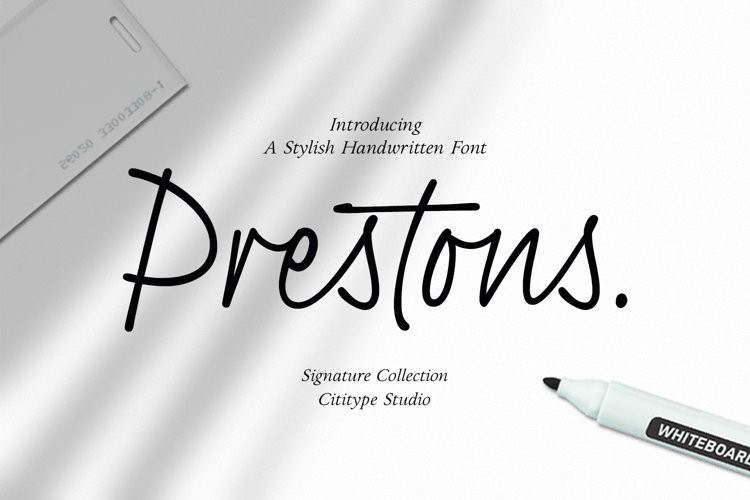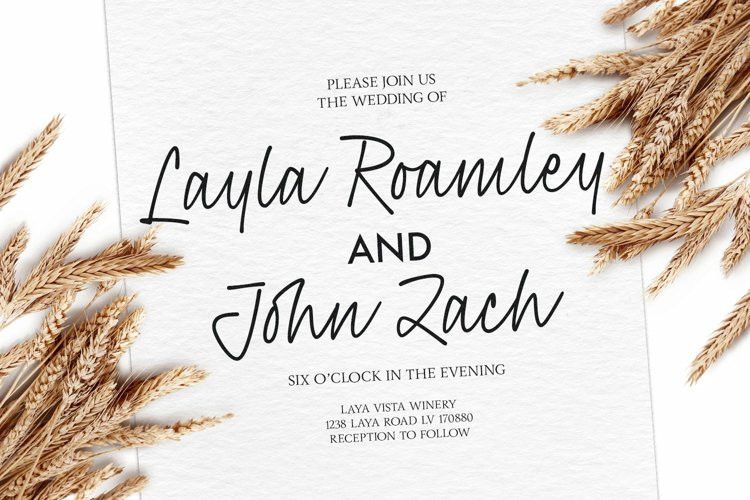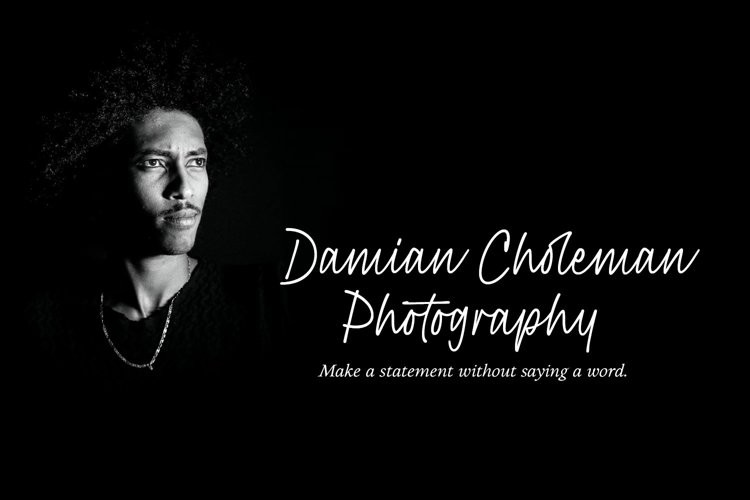
Prestons Font
Prestons FontPrestons signature was made with a medium-sized marker pen with a casual groove. Feel the sensation of natural handwriting.
This font is a great choice for digital signatures, brand names, logos, banners, headlines, wedding invitations, business cards, book titles, movies, podcast texts and craft work.